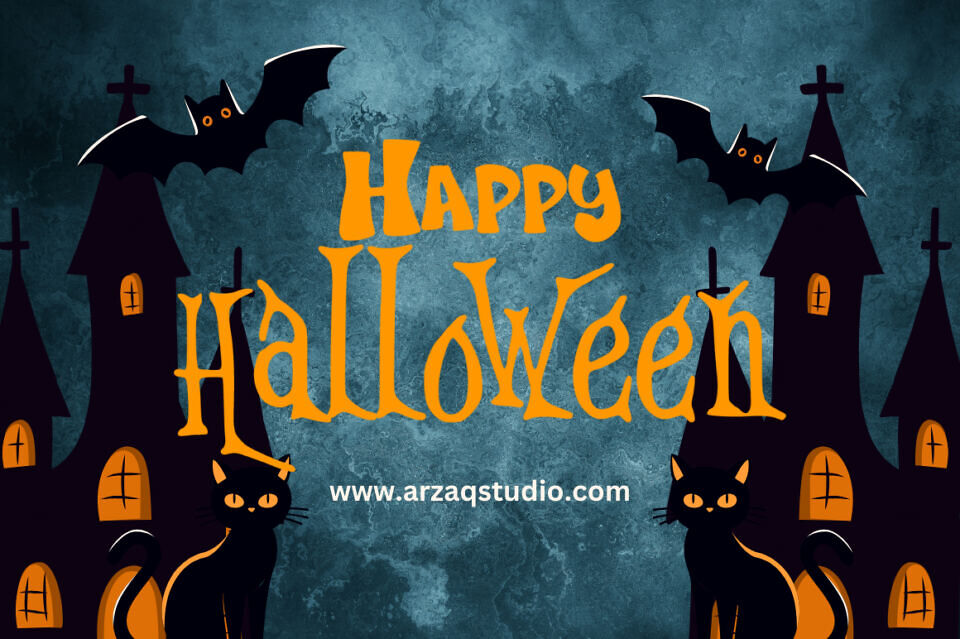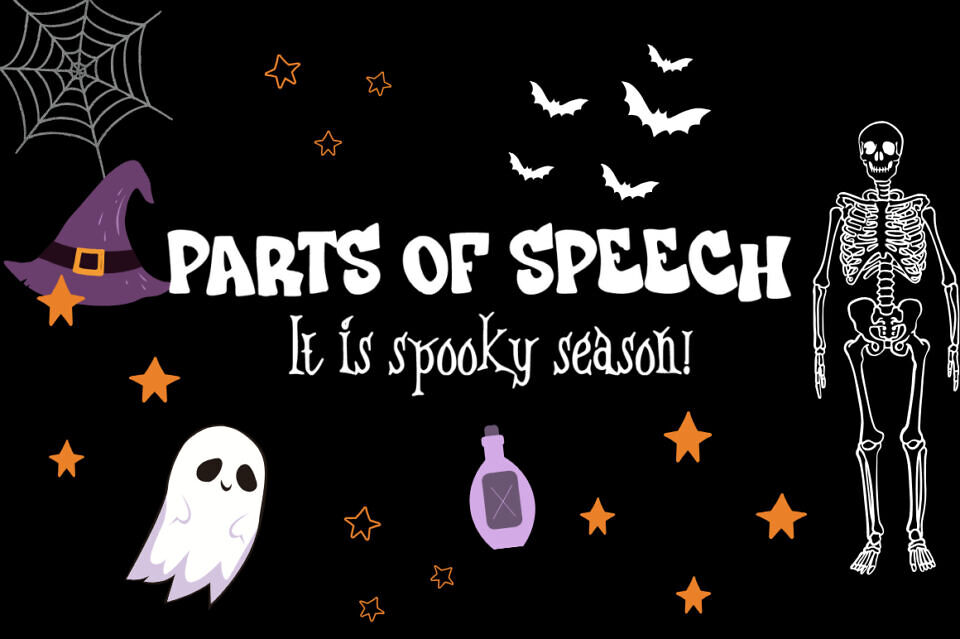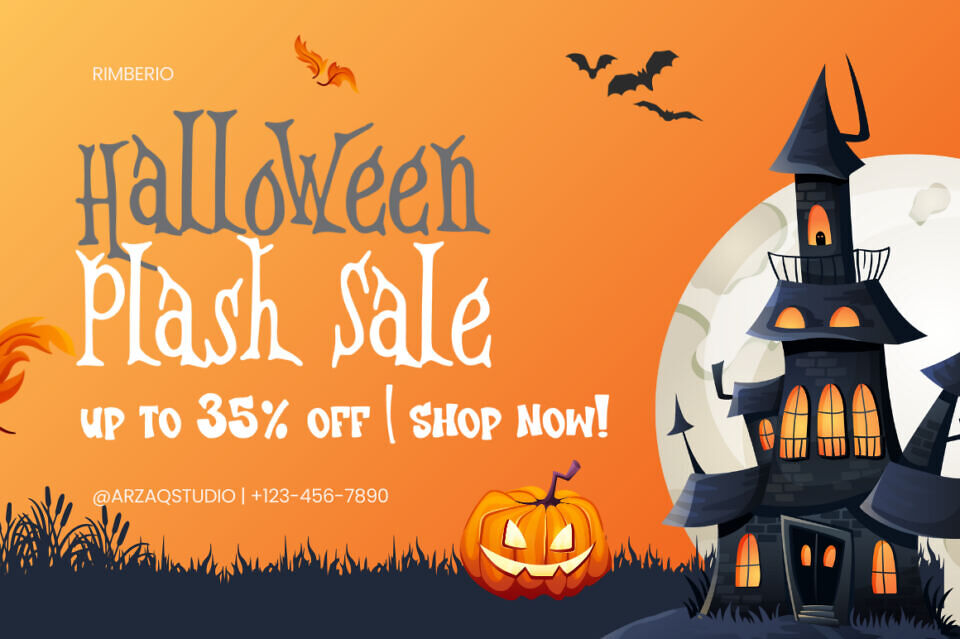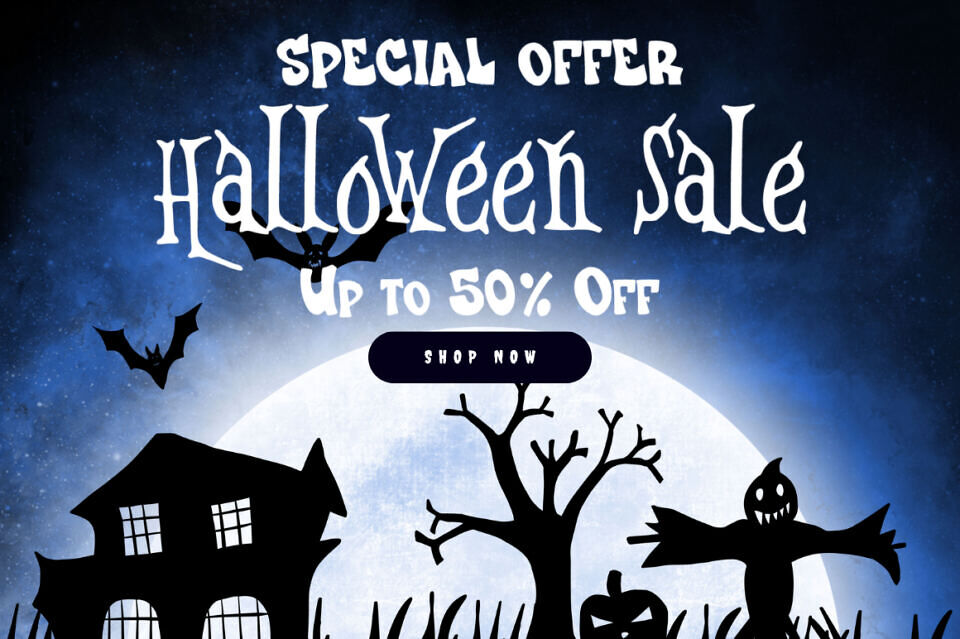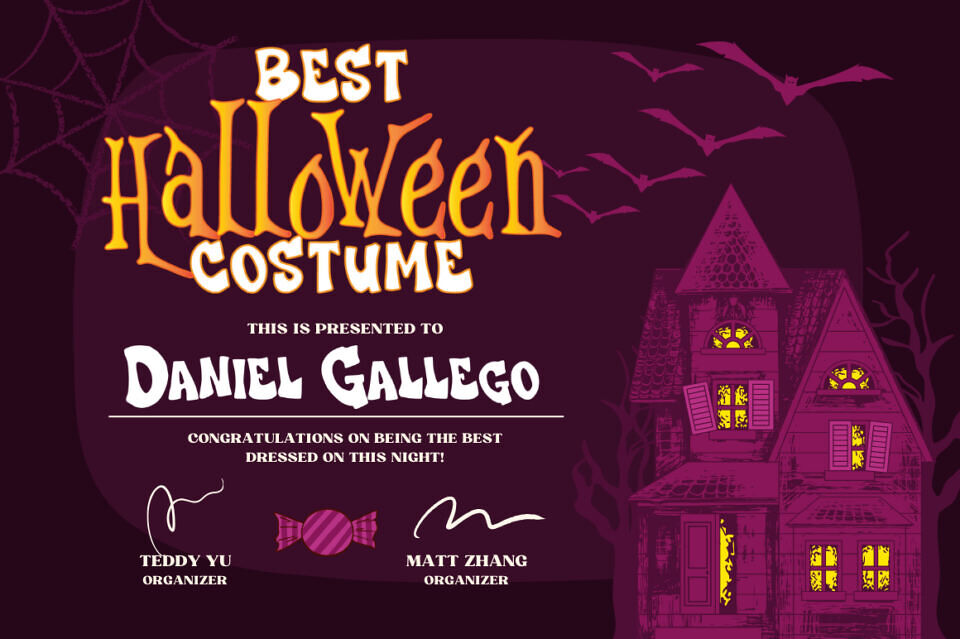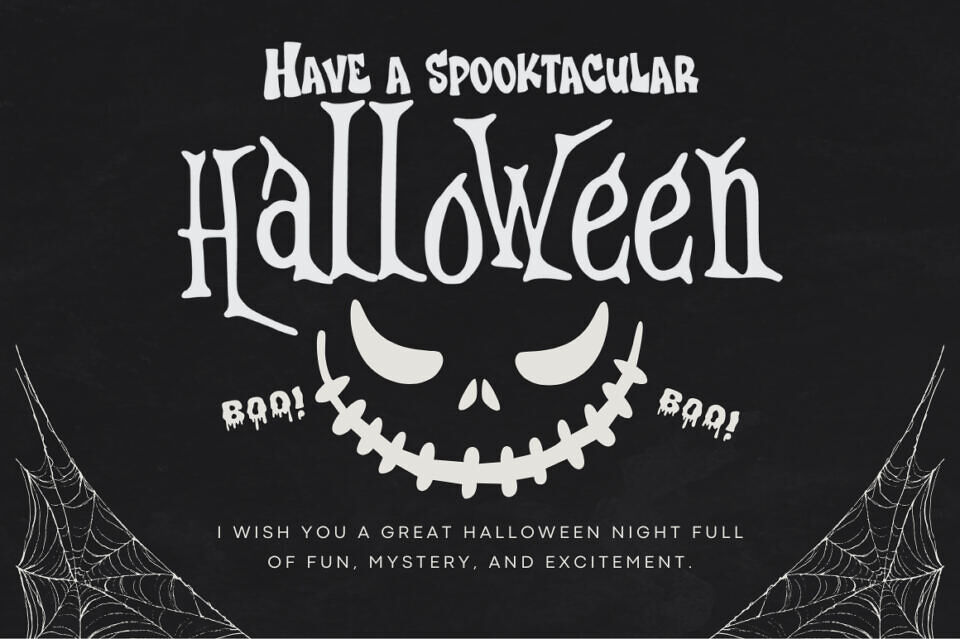
Blaze Punch Font Duo is a bold and playful typeface combination that brings energy and character to your creative projects. Featuring a chunky, fun display style paired with a quirky, hand-drawn gothic style, this duo is perfect for posters, headlines, branding, Halloween themes, and eye-catching designs.
Its unique contrast makes it versatile for both fun and spooky projects, ensuring your text stands out with style and personality. Ideal for digital products, social media graphics, t-shirt designs, and more!